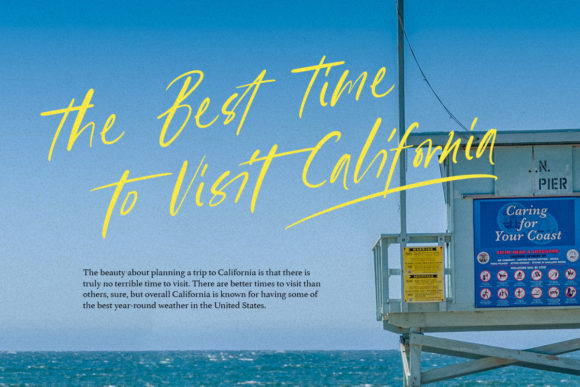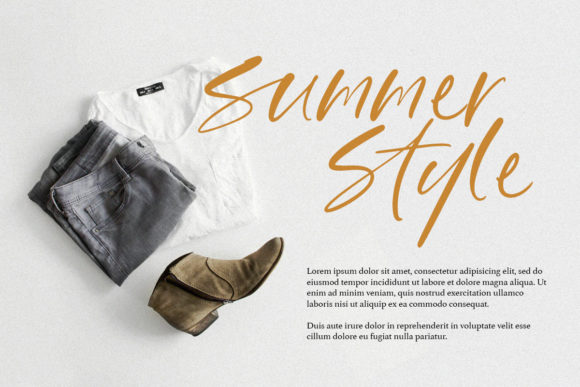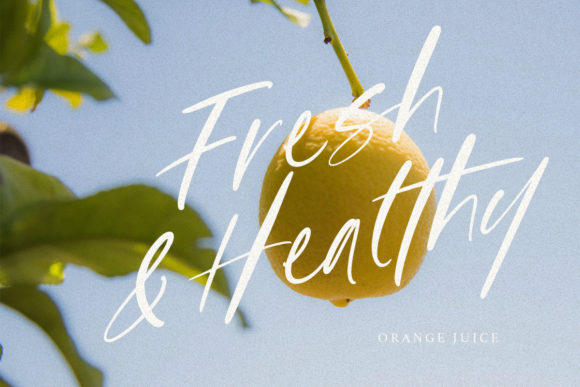
A Creative Escape to the West Coast
There’s something about capturing the essence of a warm summer evening that sparks our creativity. The soft glow of sunset, the sound of waves gently crashing against the shore, and the laid-back vibes of the West Coast – it’s a feeling that’s hard to put into words. But what if you could bottle up that essence and bring it to life in your designs?
That’s where the California Quotes Font comes in – a beautiful, relaxed script font that exudes elegance and class. Crafted with the intention of adding a touch of sophistication to your designs, this font is perfect for those looking to create a refreshing and unique look.
Whether you’re a designer, artist, or entrepreneur, the California Quotes Font is a valuable addition to your toolkit. Its versatility and beauty make it a must-have for anyone looking to elevate their designs and stand out from the crowd.
California Quotes Font Key Features
- Font Family: California Quotes Font is a script font designed to evoke the feeling of handwritten quotes.
- Size: The font comes in 7 weights, ranging from Thin to Black, allowing for versatility in design applications.
- Unique Characteristics: California Quotes Font features a unique, cursive script style with subtle flourishes and swashes, making it perfect for adding a touch of elegance to designs.
California Quotes Font Review
As a designer, I was excited to dive into the California Quotes Font. Here’s my honest take on this font:
What works well: ✨ I love the laid-back vibe of this font. It’s perfect for projects that need a touch of West Coast cool. The font’s unique quotes and symbols add a fun, playful element that’s sure to grab attention. Additionally, the font’s legibility is top-notch, making it easy to read even in smaller sizes.
- ✨ The font’s versatility is impressive, and it can be used for a wide range of projects, from social media graphics to advertising materials.
- ✨ The font’s unique characters and symbols are a great way to add visual interest to a design.
Limitations: ⚠️ While I love the font’s overall aesthetic, there are a few limitations that might make it less appealing to some designers. The font is a bit on the heavier side, which can make it difficult to use in situations where a lighter font is needed. Additionally, the font’s unique characters and symbols can be a bit overwhelming in certain contexts.
- ⚠️ The font’s weight can make it difficult to use in situations where a lighter font is needed.
- ⚠️ The font’s unique characters and symbols can be overwhelming in certain contexts.
Overall, I think the California Quotes Font is a great addition to any designer’s toolkit. While it may have some limitations, its unique aesthetic and versatility make it a great choice for projects that need a touch of West Coast cool.
For the most effective use of the California Quotes Font, consider the following tips:
1. Use it for inspirational or motivational quotes.
2. Pair it with a clean and minimalist design.
3. Experiment with different font sizes and styles to create visual interest.
The California Quotes Font is commonly used for:
1. Social media posts.
2. Blog posts and articles.